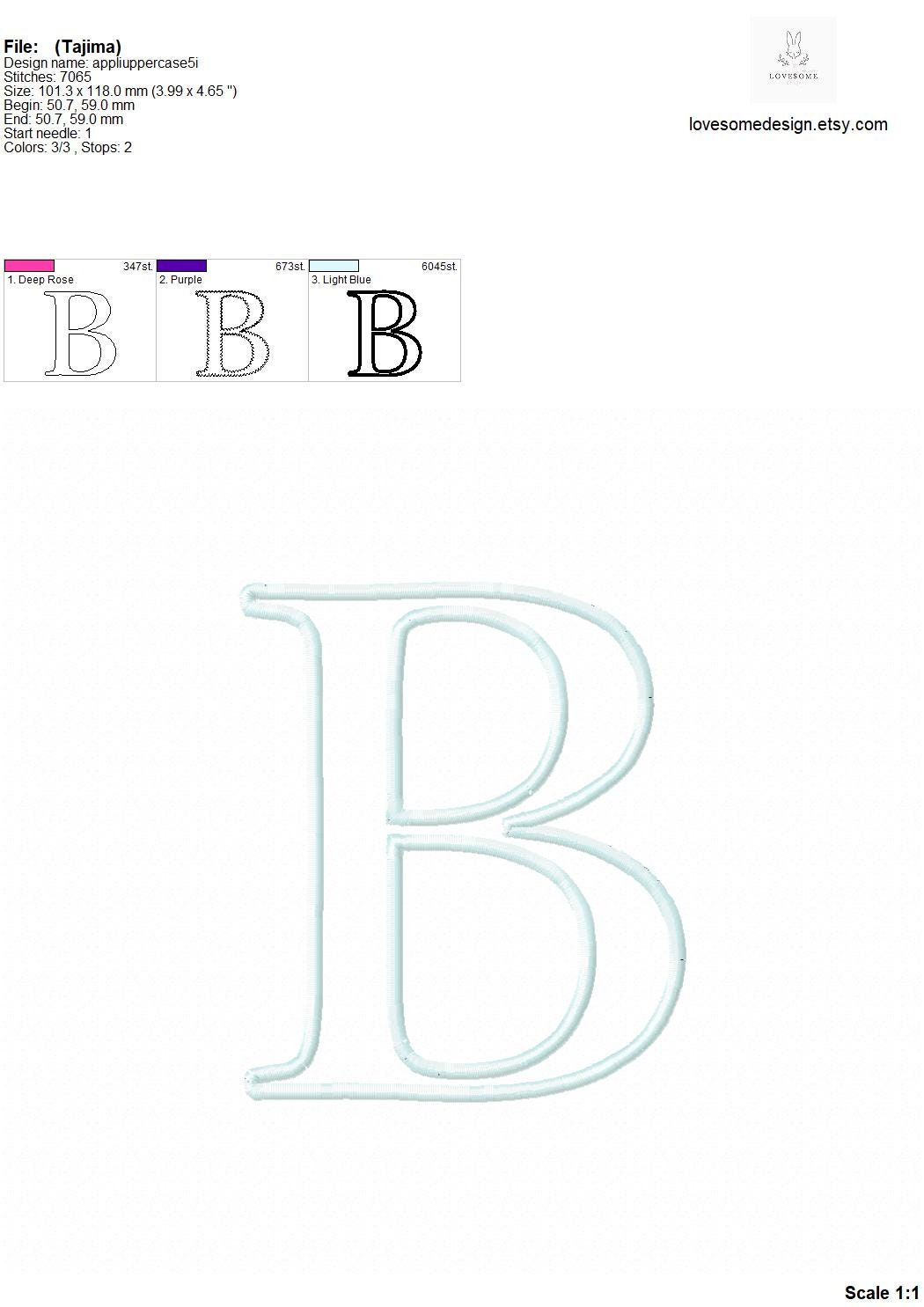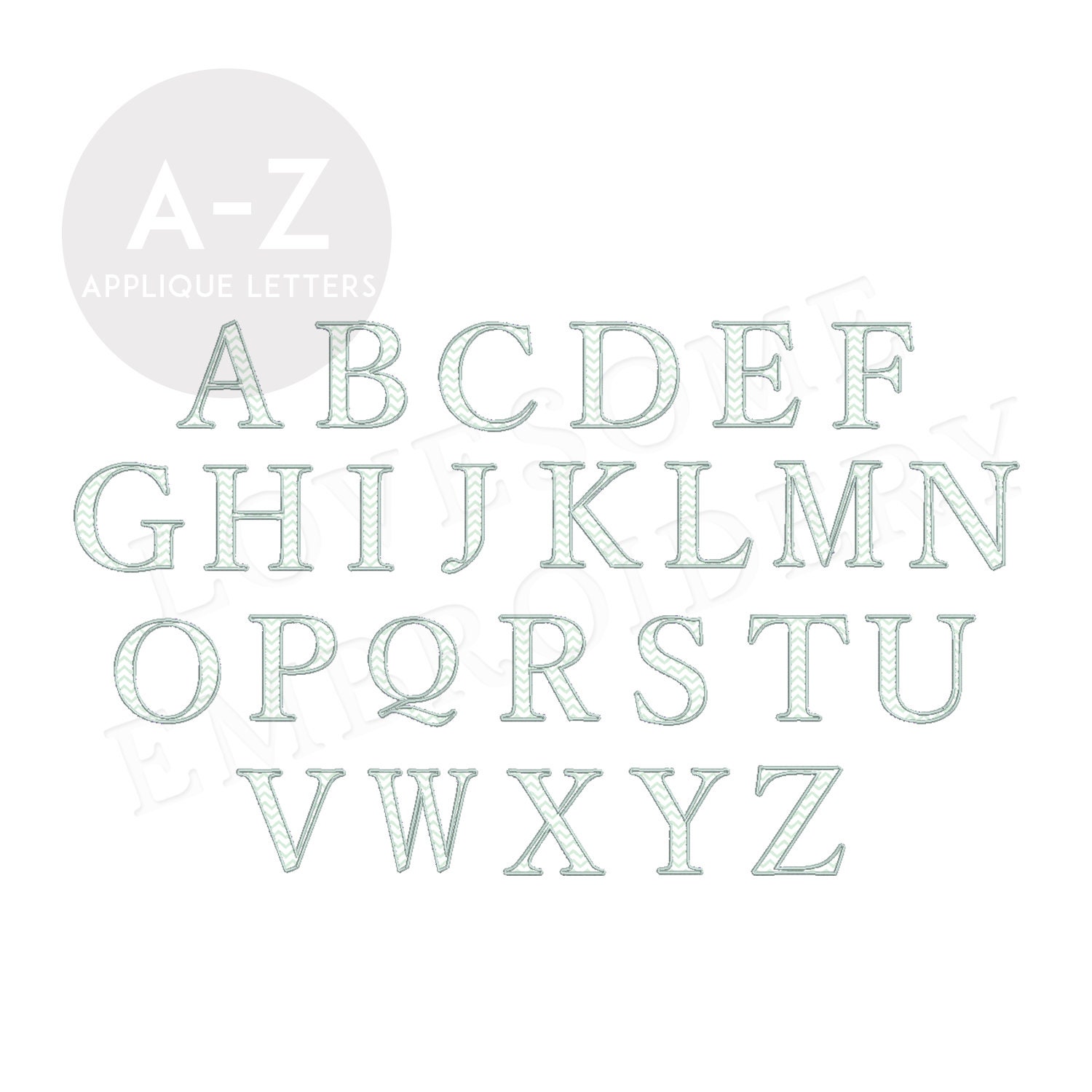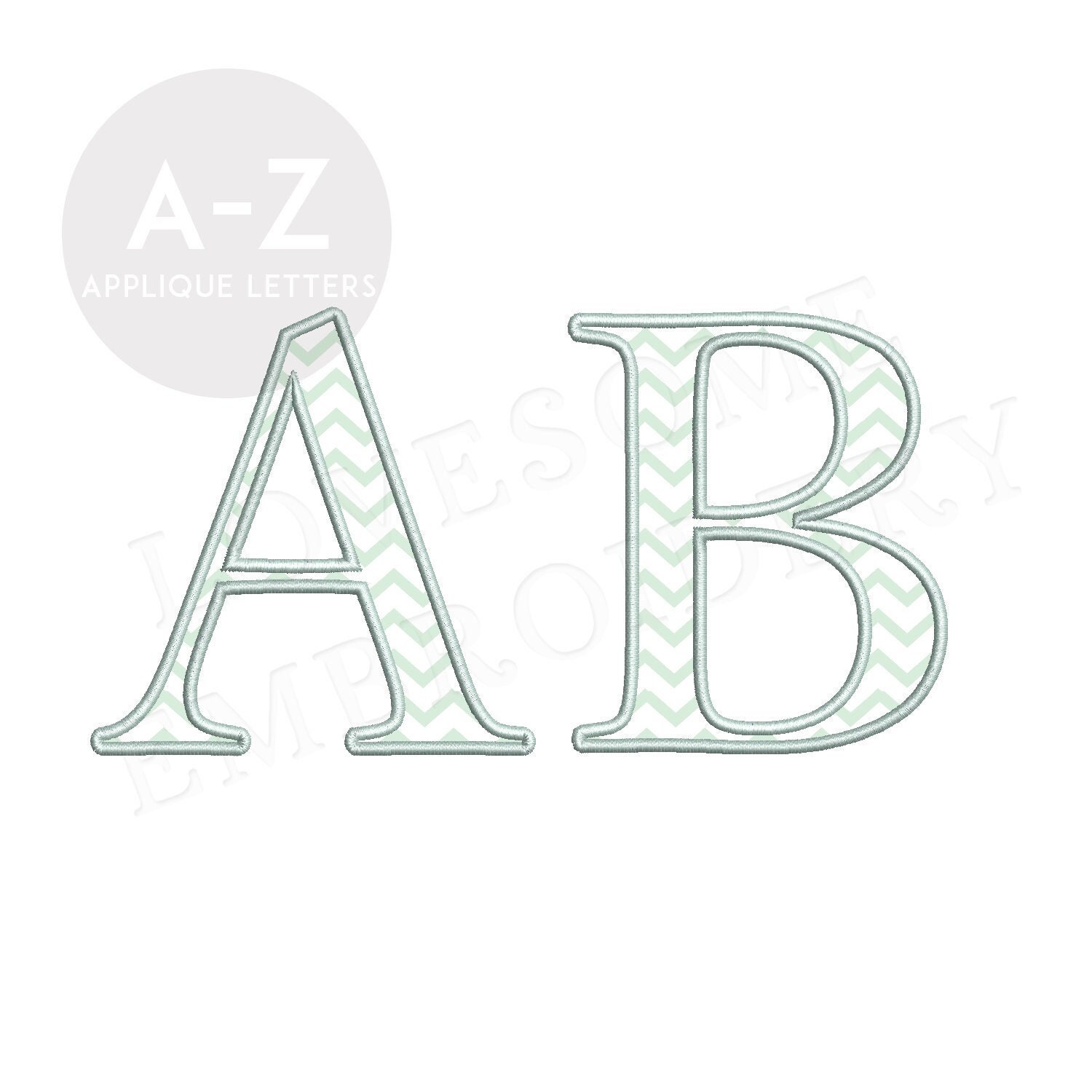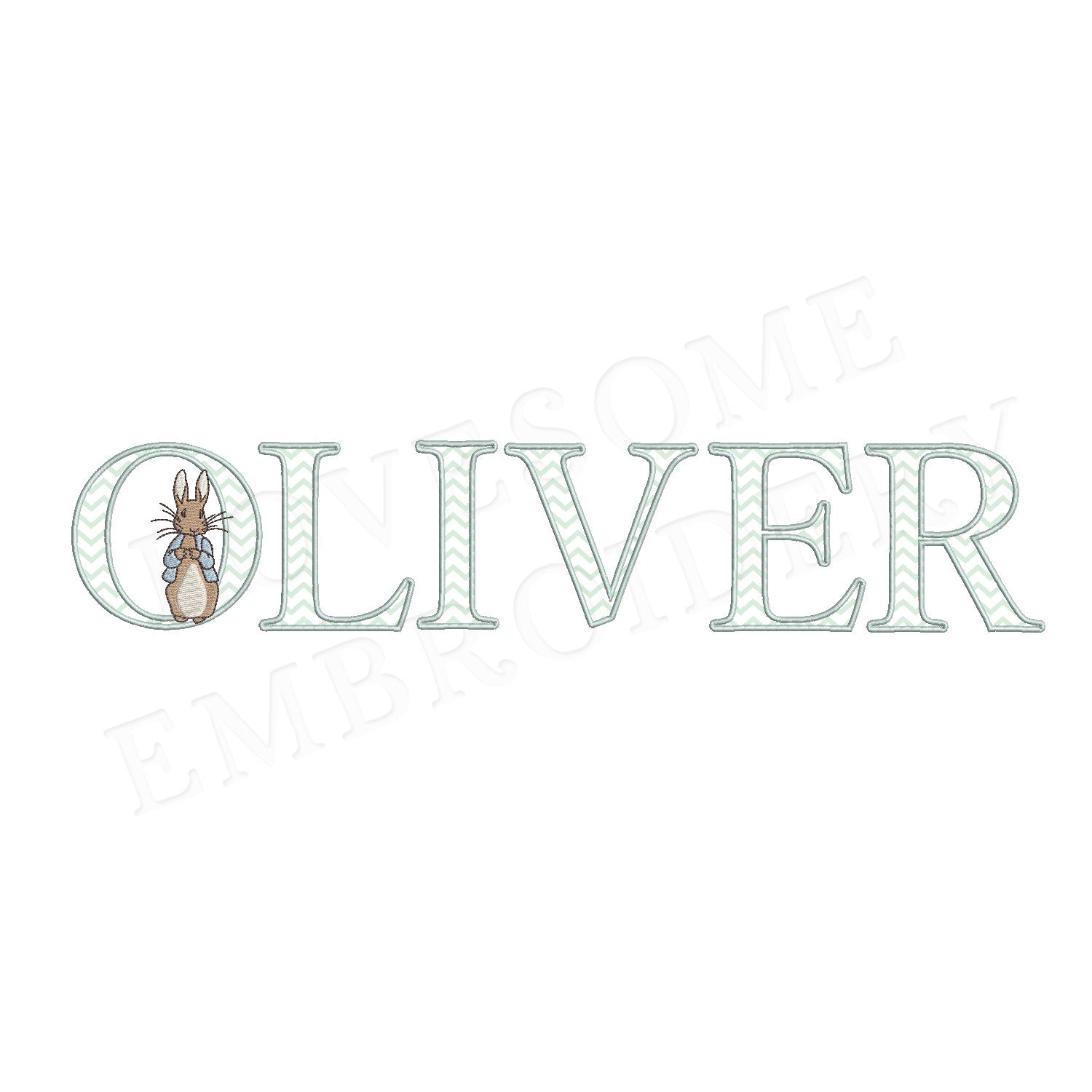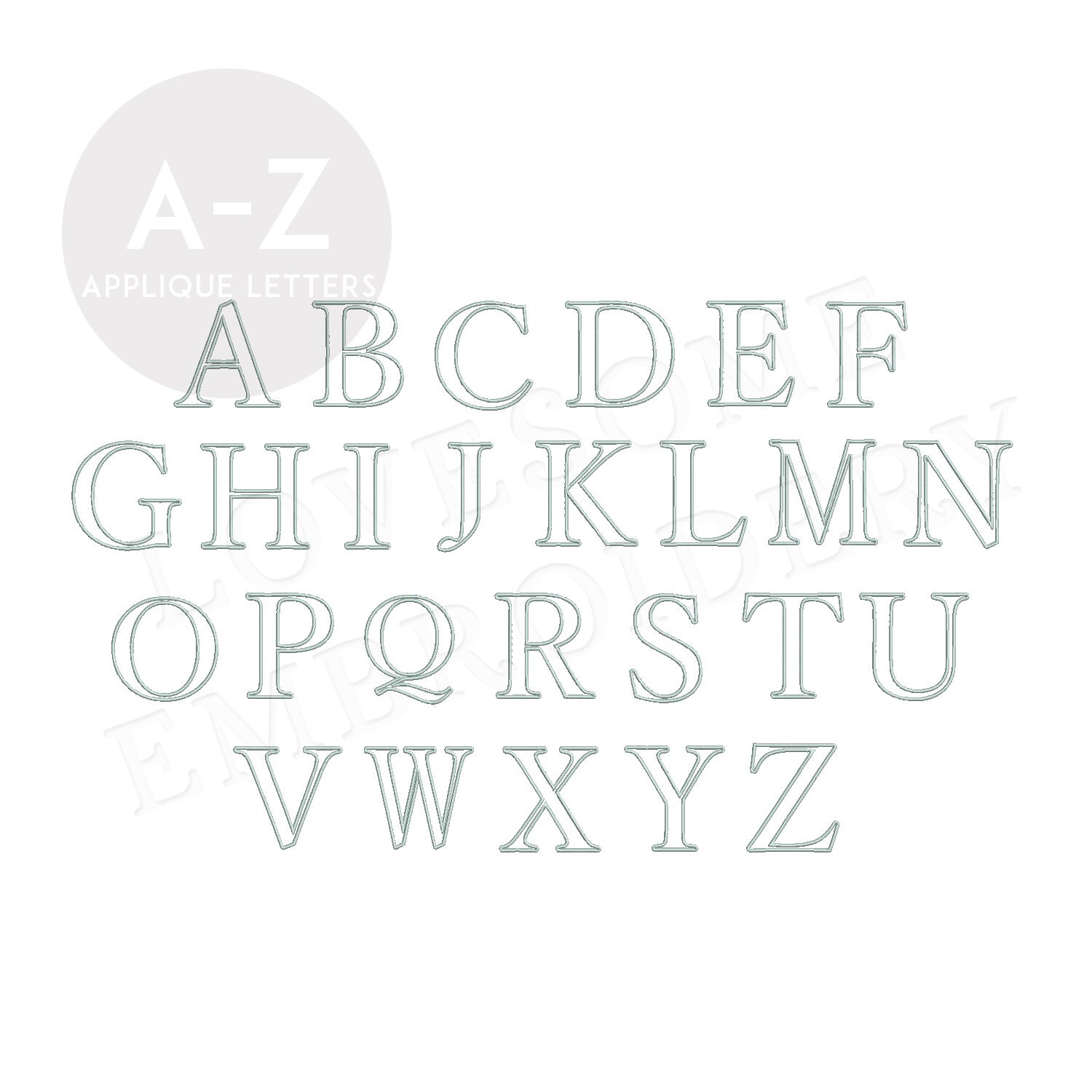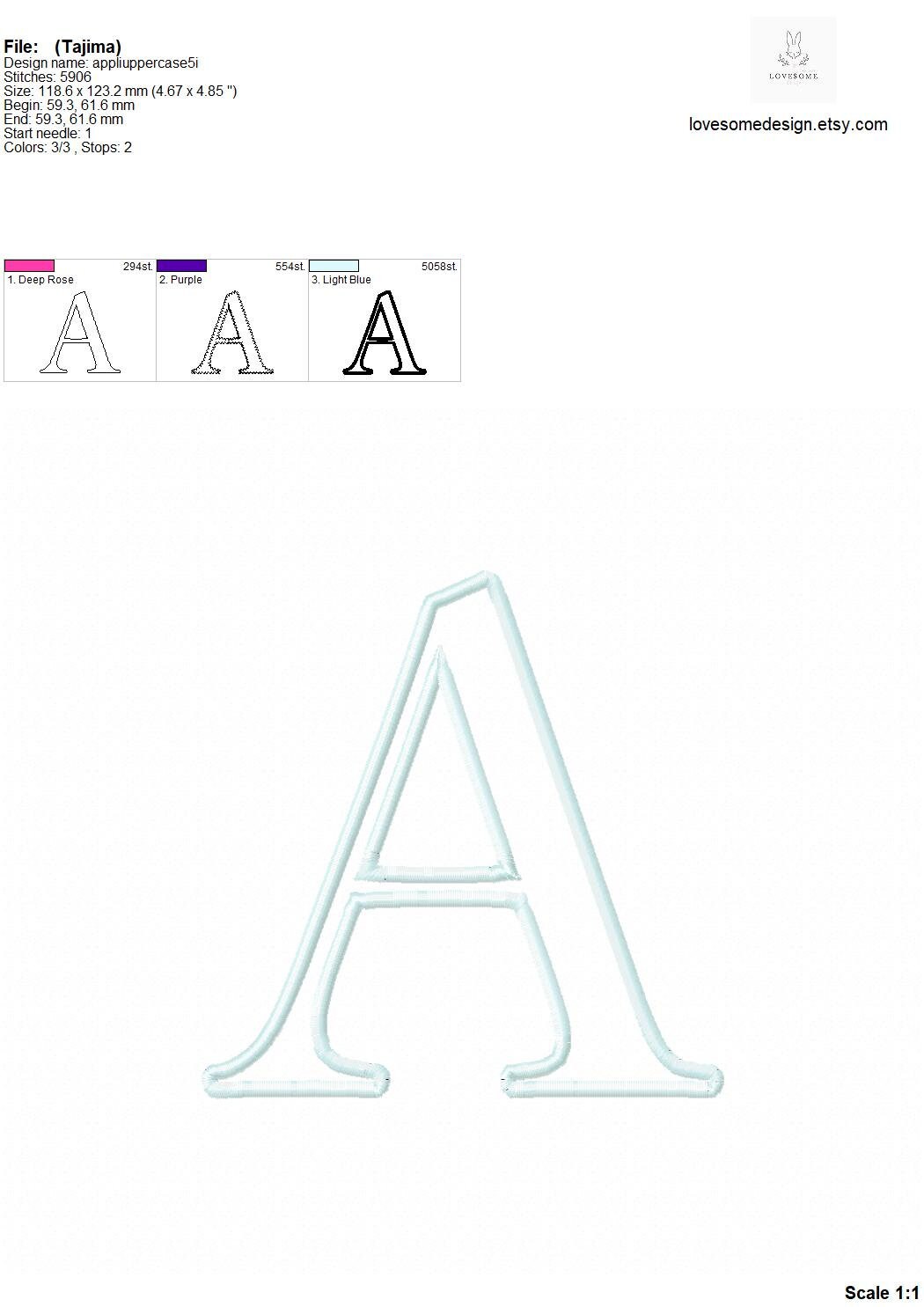
Applique Uppercase 5inch Embroidery Font Matching Letters with Peter Rabbit, Monogram Embroidery for Customized Gifts | Lovesome Design
This listing features a machine embroidery font set which includes embroidery files of 26 uppercase applique letters in 5inch size perfectly matching with our Peter Rabbit Applique Alphabets. (For the whole set, pls see the listing images.)